From retro charm to drippy horror, get quick previews, pairing ideas, and cutter-friendly tips for faster design.
When October deadlines loom, the right typography sets the scare, nails the vibe, and keeps branding consistent across invites, posters, packaging, and merch. Explore 45 picks with speedy lookups, mix-and-match guidance, and cutting-machine advice for Cricut/Silhouette, so you can choose, pair, and output crisp cuts or prints in minutes—no trial-and-error.
1. Fancy Horror Display Font
A playful, spooky-elegant color font that makes Halloween designs pop. Perfect for eye-catching titles, invitations, and seasonal decor.
- Style/mood: Playful, stylish, and spooky with a touch of elegance (display font).
- Ideal uses: Party invitations, posters, classroom materials, decorations, and festive graphics.
- Glyphs & features: OpenType-SVG color glyphs; standard character set; no specific alternates/ligatures stated.
2. Spookyman Horror Display Font
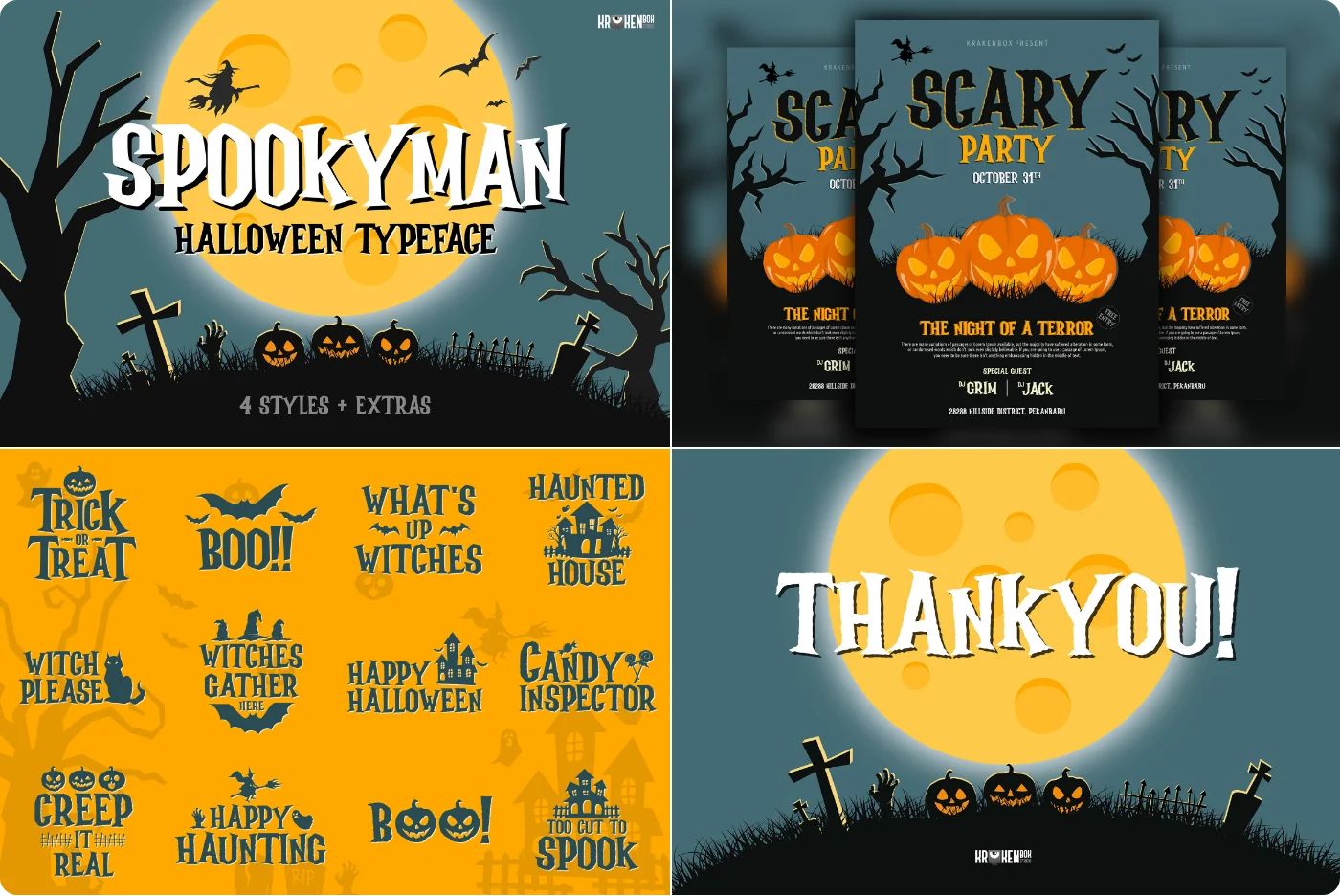
Spookyman is a Halloween display typeface that delivers a classic, mysterious, horror vibe for bold, spooky headlines and branding.
- Style/mood: vintage horror, mysterious, spooky display lettering.
- Best for: Halloween event flyers and invitations, posters, apparel, logos/branding, album covers, magazines, social media ads.
- Glyphs/OpenType: Standard Latin letters, numbers, and punctuation for display use; alternates/ligatures not specified.
- Notes: Designed for headlines and short text; not intended for long body copy.
3. Halloween Dingbats Font
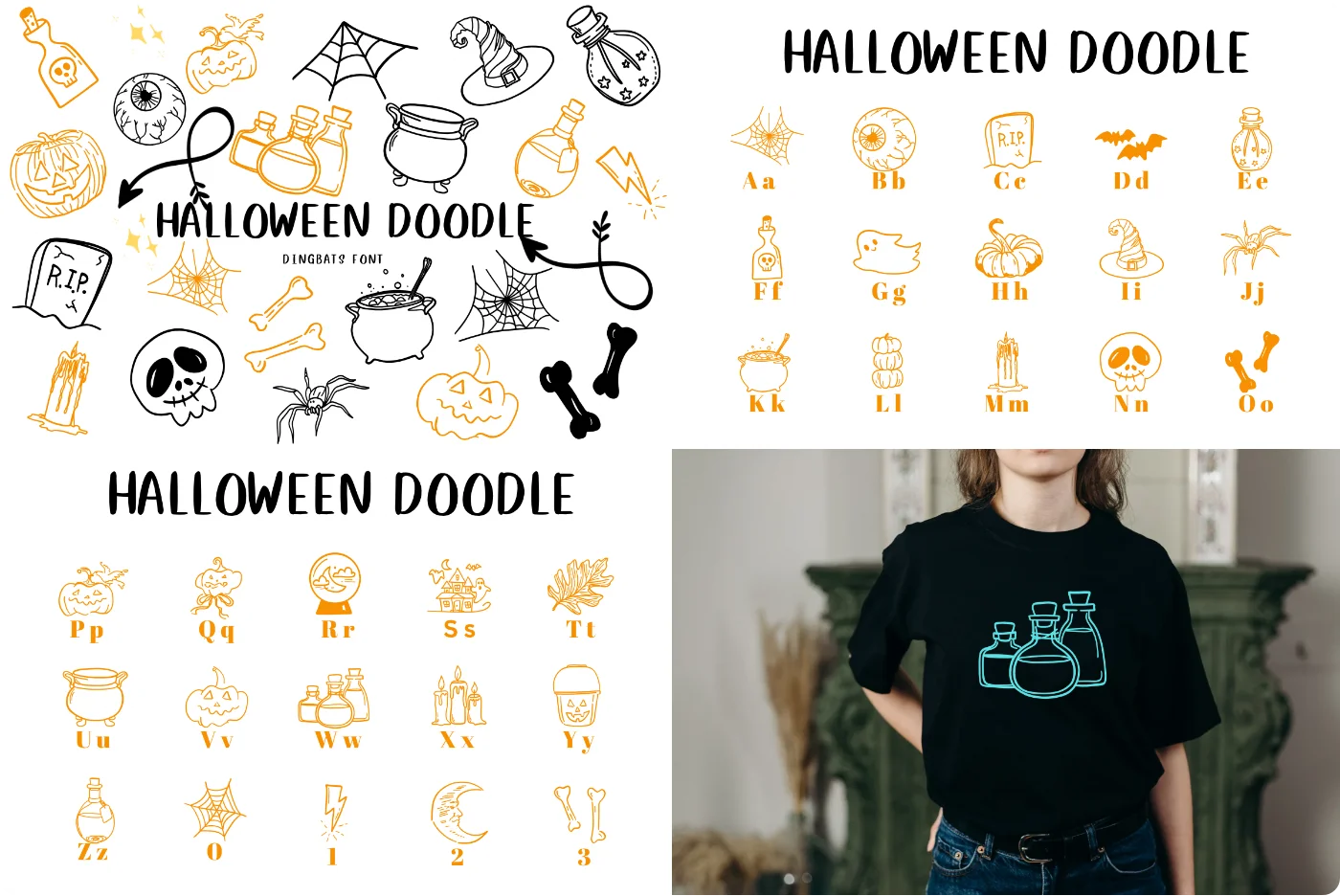
A playful–spooky dingbats font of hand-drawn Halloween icons—type a letter to drop in pumpkins, potions, skulls, spiders, witch hats, and more.
- Style/mood: hand-drawn, cute-spooky doodle icons with clean, cut‑friendly lines.
- Ideal uses: invitations, party decor, stickers/labels, treat bags, scrapbooking, classroom printables, social posts, and vinyl cutting.
- Glyph set: Halloween pictograms mapped to standard keyboard characters (A–Z, a–z, 0–9, basic punctuation); all characters are icons (not letters).
- OpenType features: simple dingbats set—no alternates, ligatures, or advanced features required; access icons by typing or via your app’s glyphs/character viewer.
4. Halloween Decorative Display Font
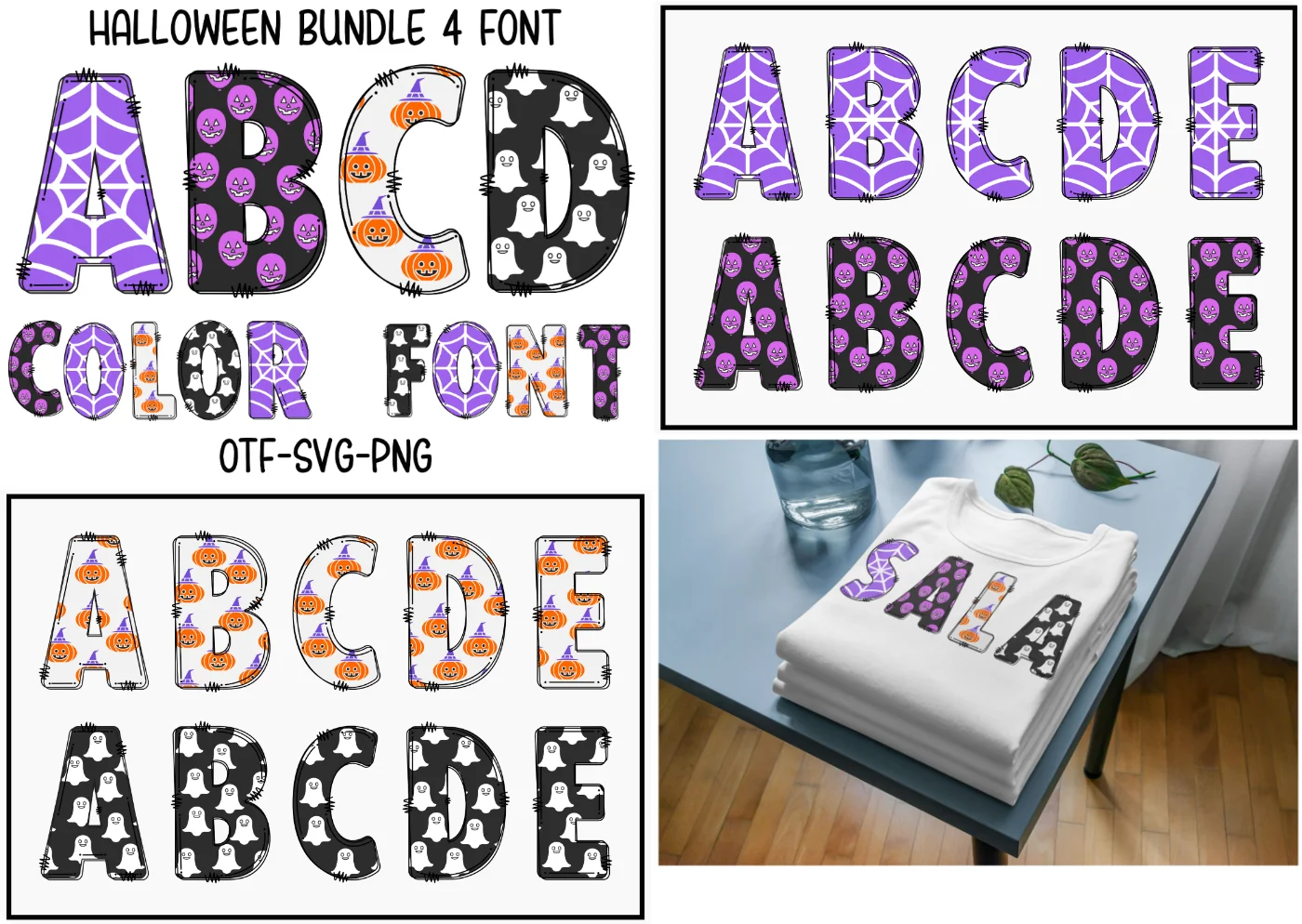
Bring playful spooky vibes to your projects with this cute, detailed Halloween color font—plus a solid black version for cutters. Designed to make seasonal titles, signs, and crafts instantly festive.
- Glyphs/OpenType: basic Latin letters A–Z/a–z, numerals, and punctuation; no additional OpenType features specified.